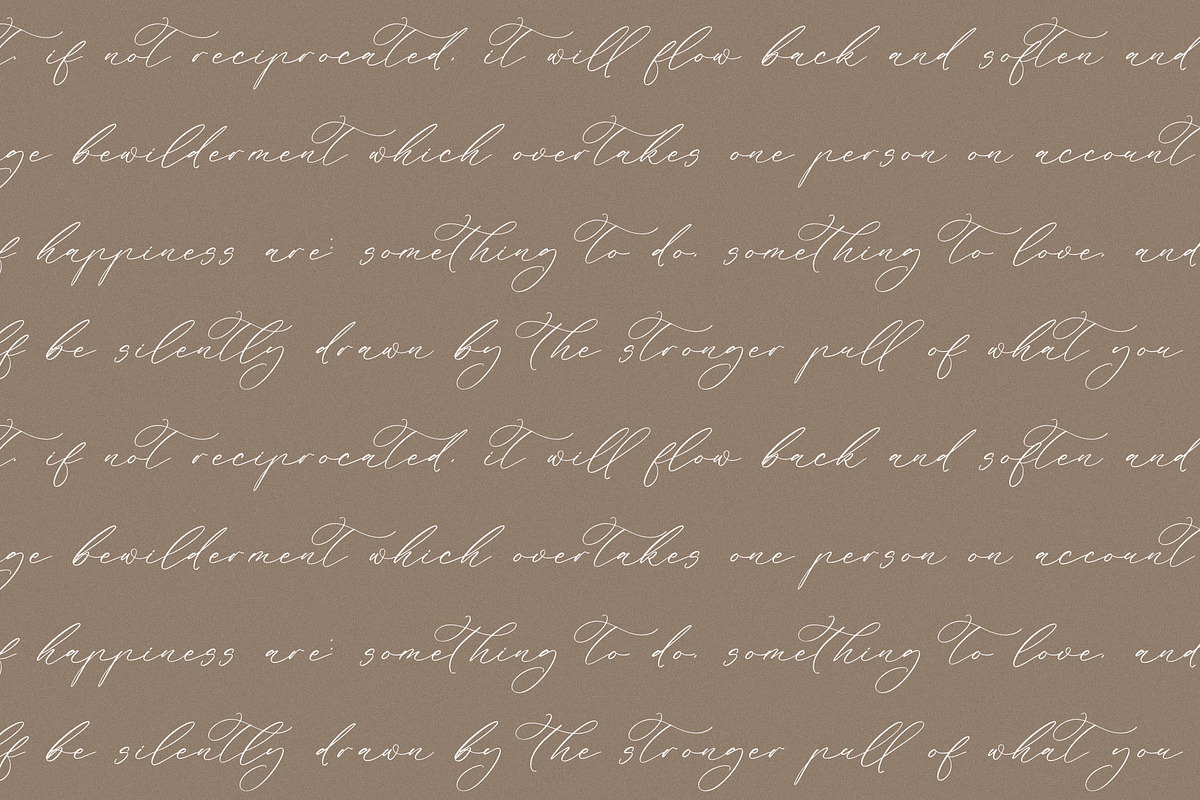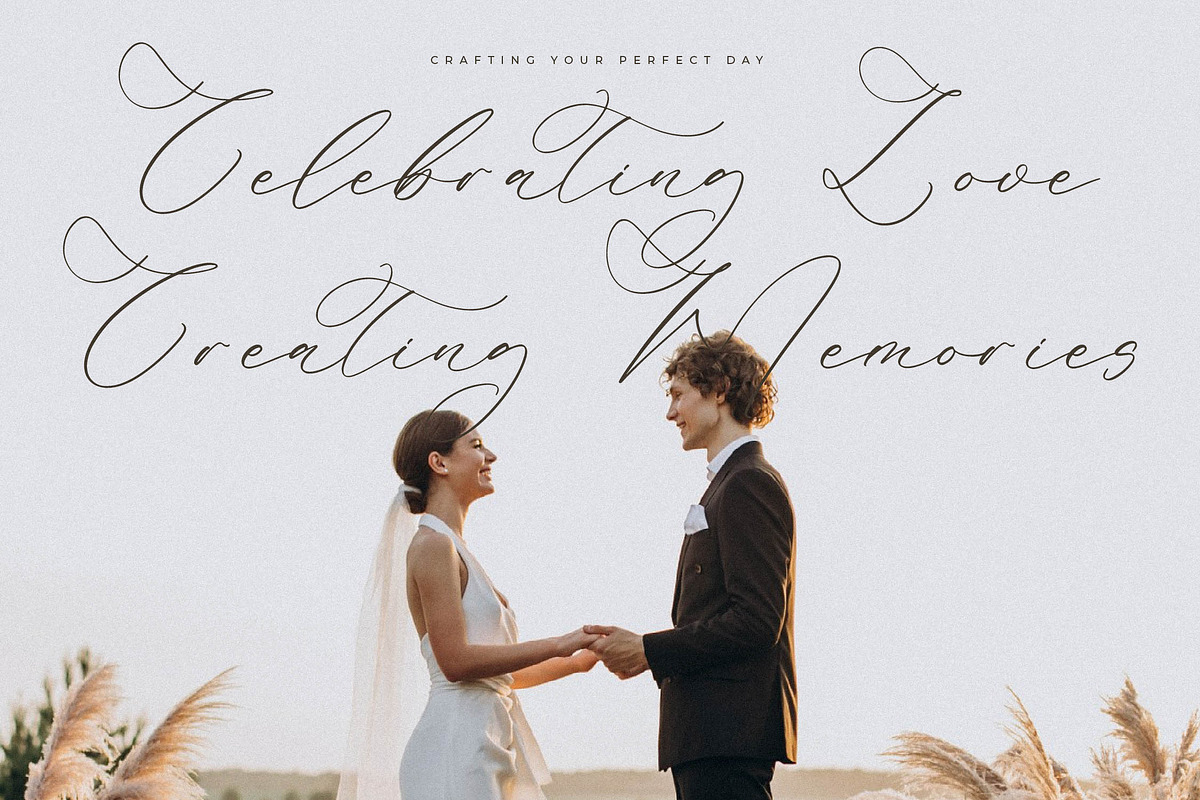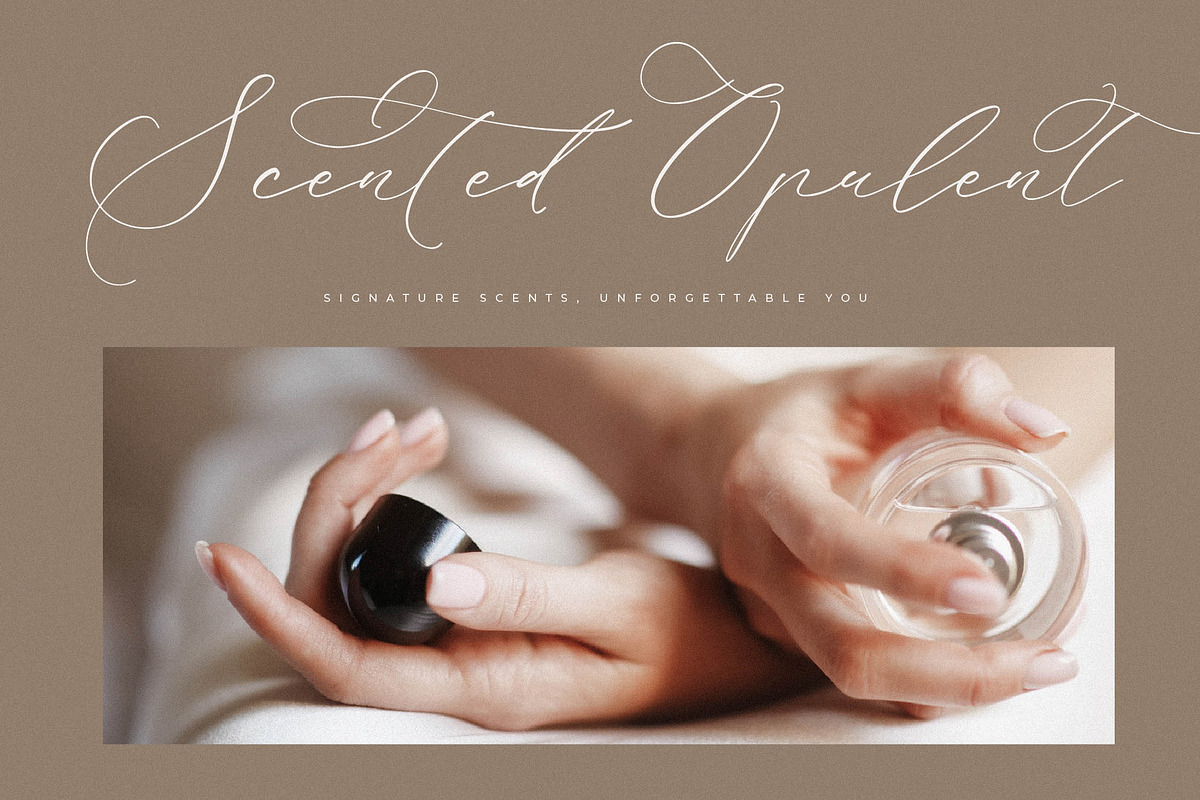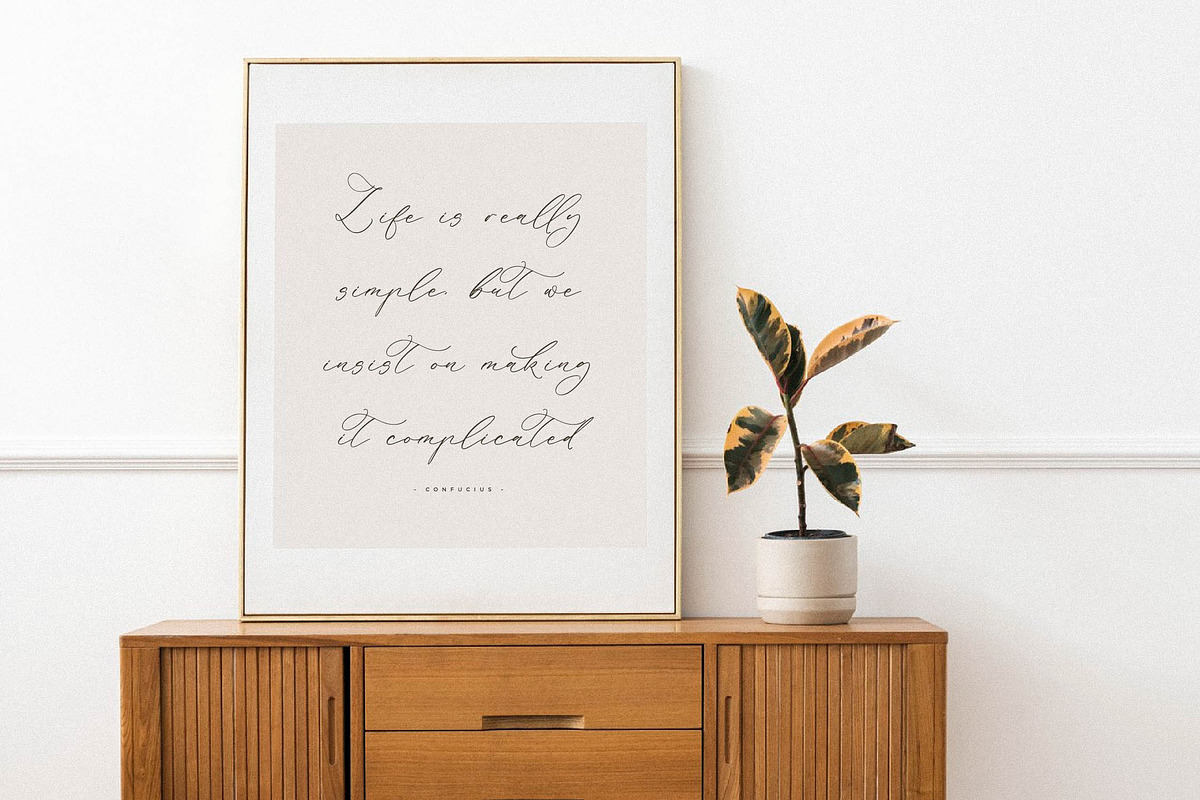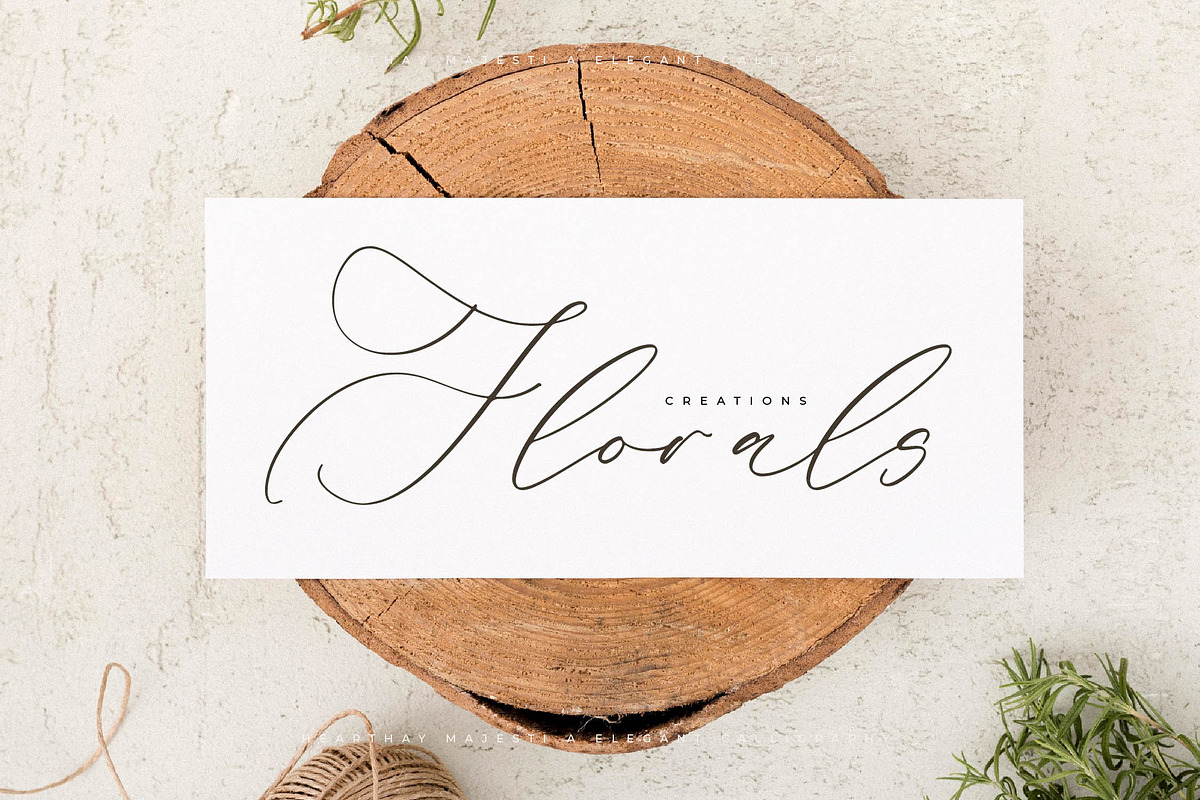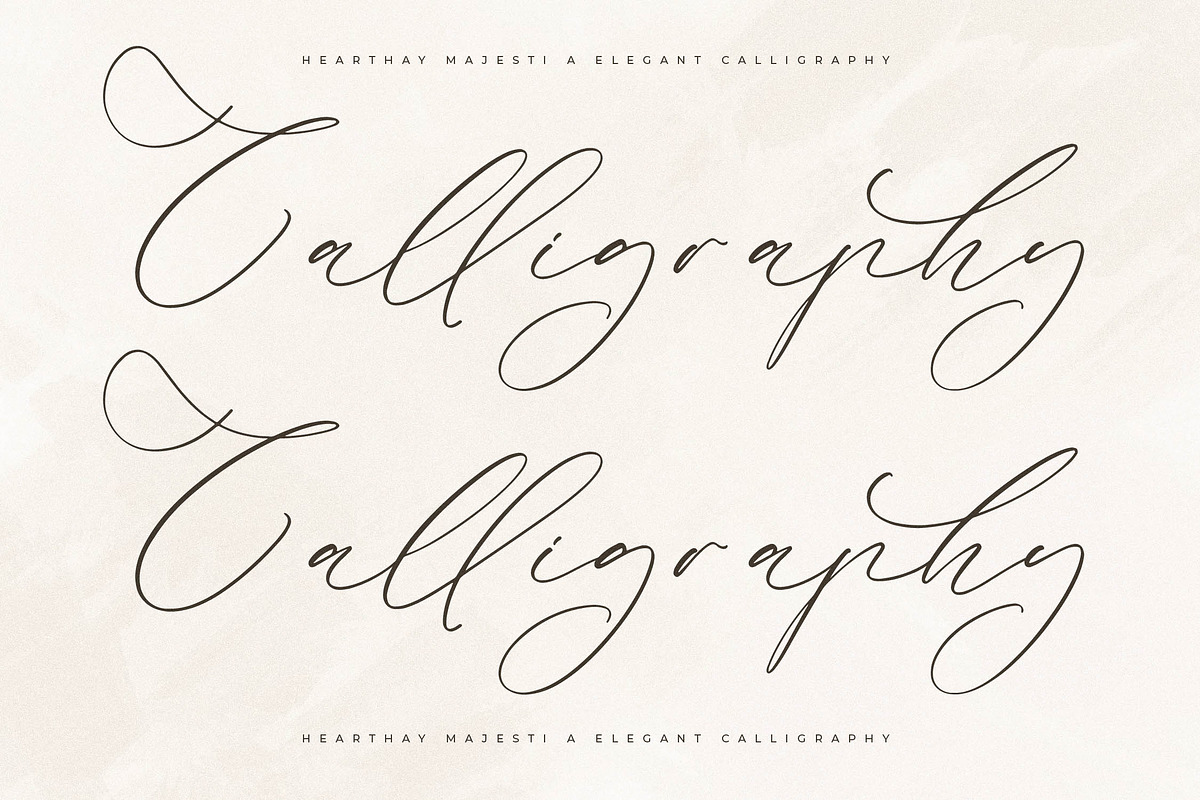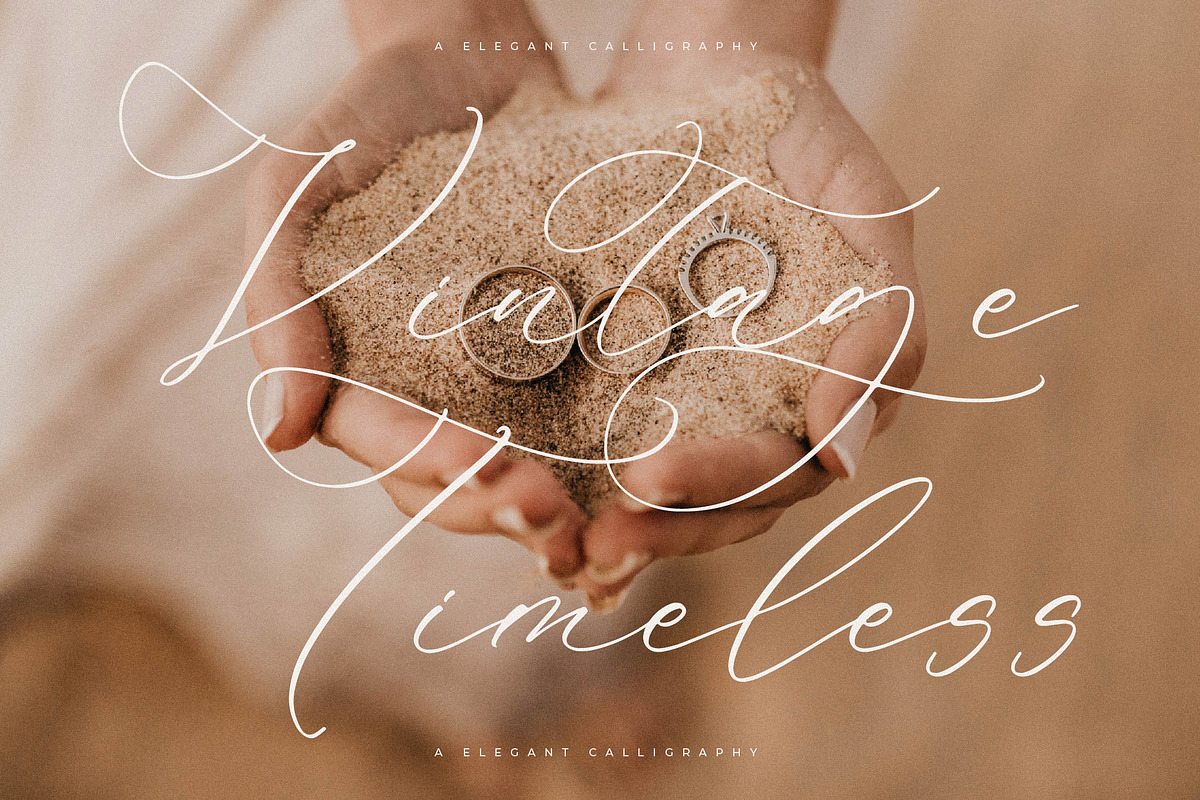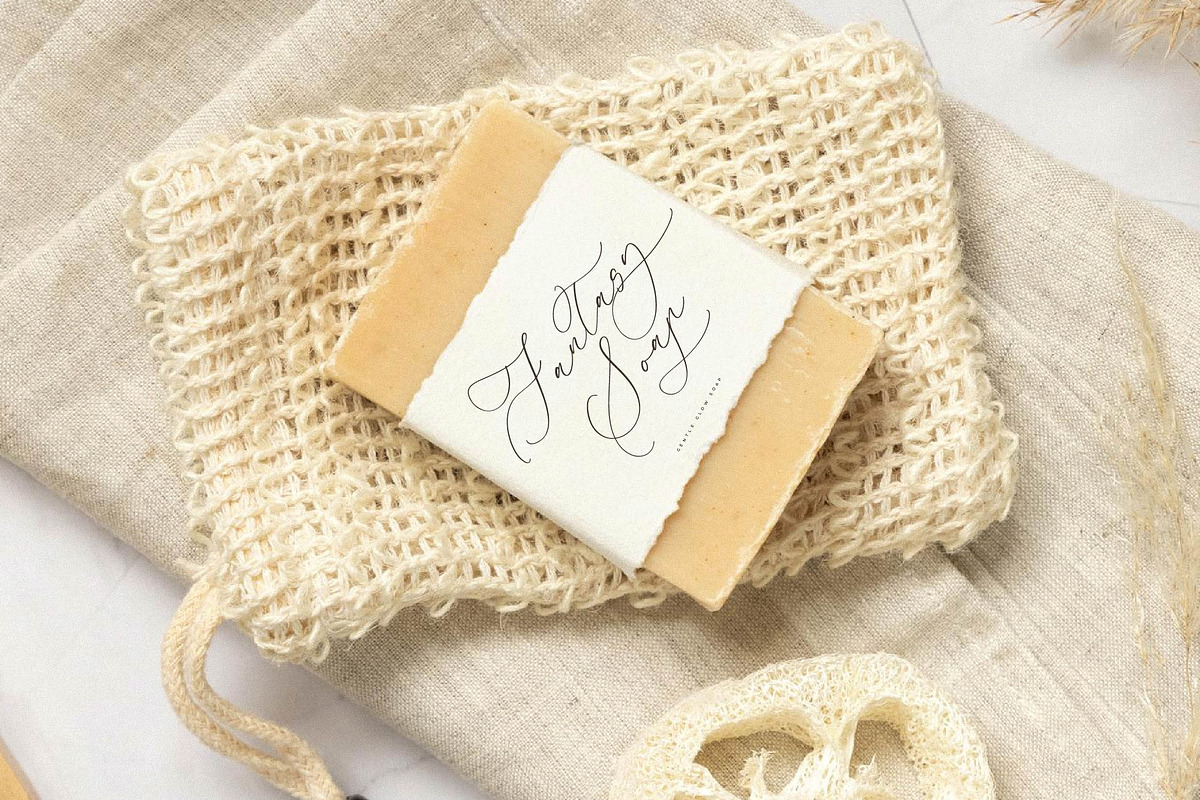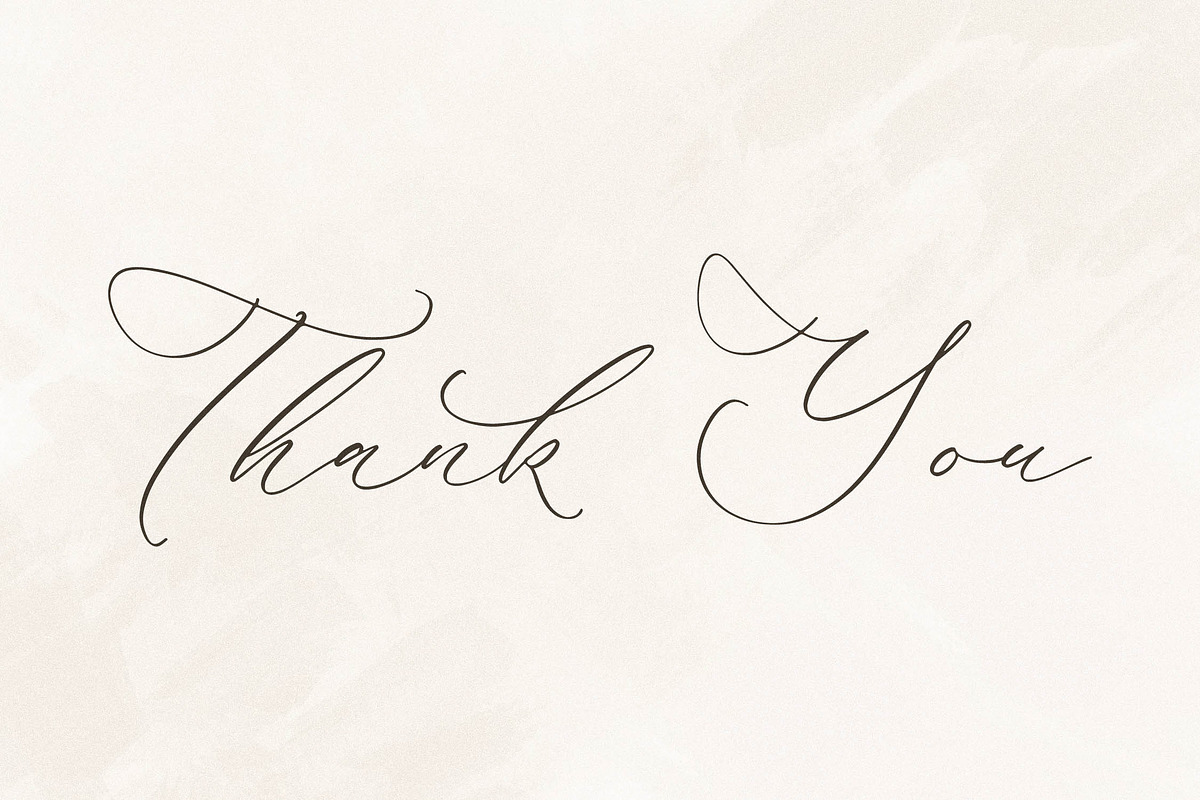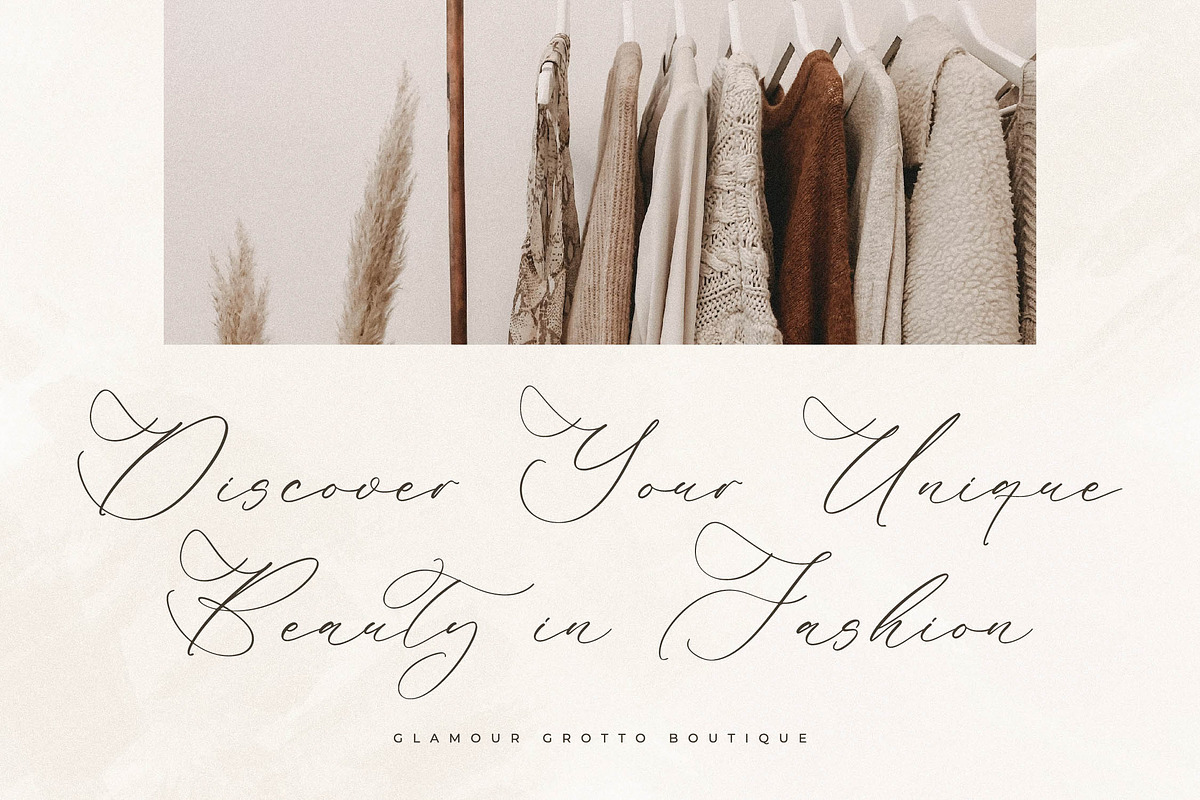
Hearthad Majestic Elegant Font
Proudly present Hearthad Majestic – Elegant Calligraphy , created by Storytype, A luxury script that has own unique style & modern look. This typeface is perfect for an elegant & luxury logo, book or movie title design, fashion brand, magazine, clothes, lettering, quotes, and so much more.